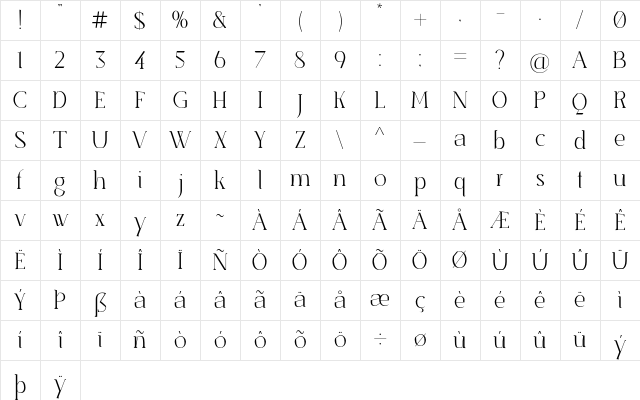
SenzaBella Thin Free Font
SenzaBella Thin
Style: Thin
Designer: Ryan Williamson
Complete SenzaBella Thin glyph index. Displaying only characters natively supported by SenzaBella Thin font.
Design Context for SenzaBella
SenzaBella is a composed and adaptable typeface that performs quietly and consistently across a wide range of design contexts. Its slender proportions lend an understated elegance to any composition.